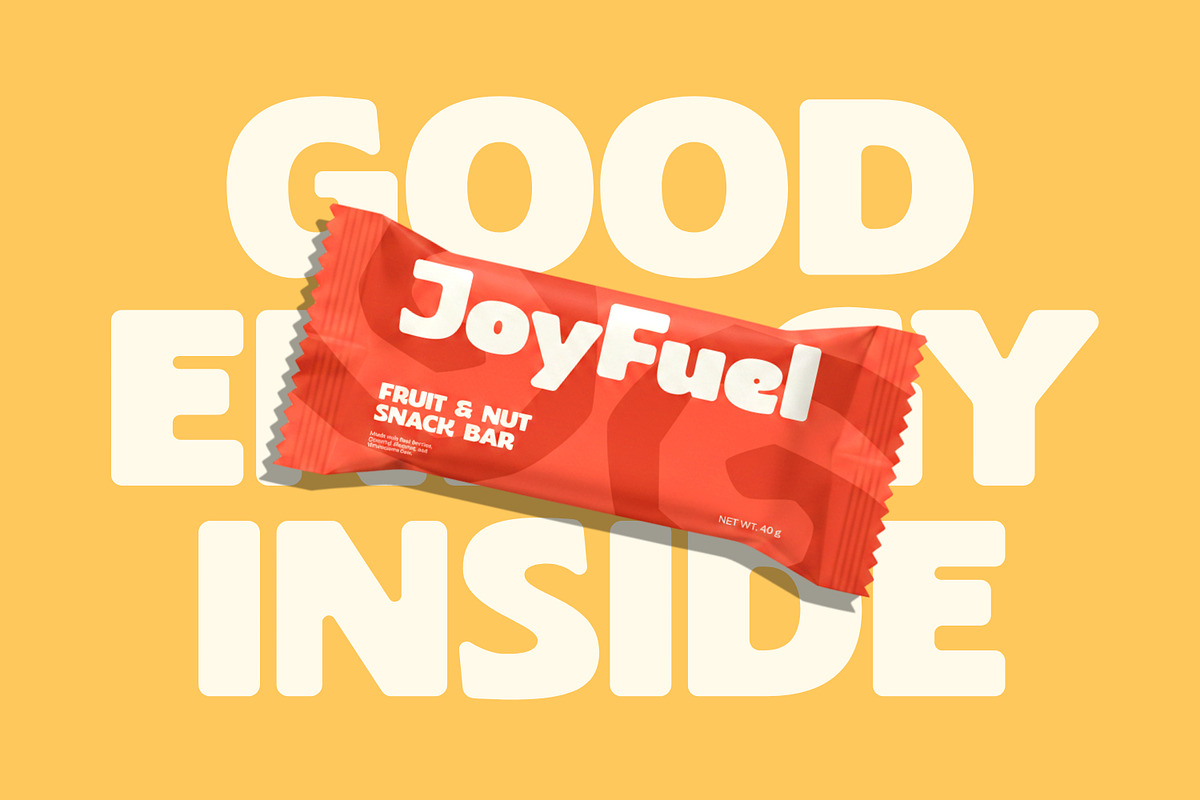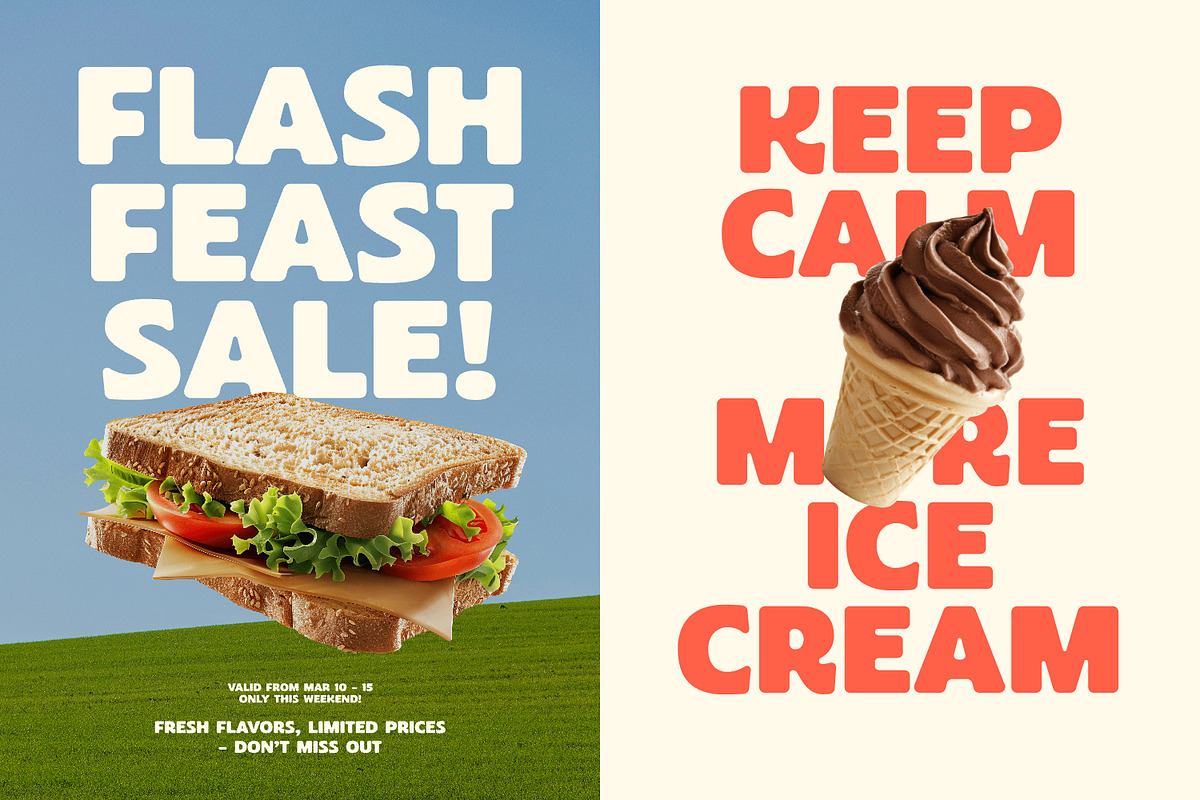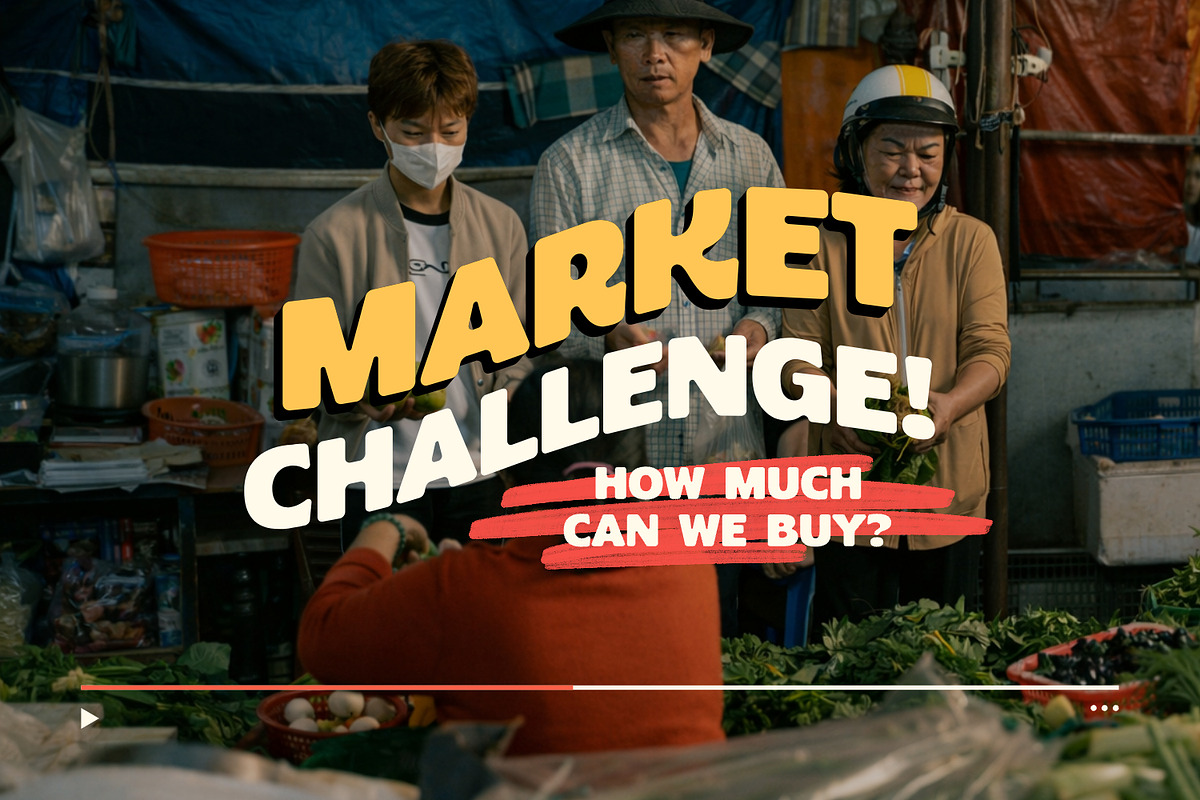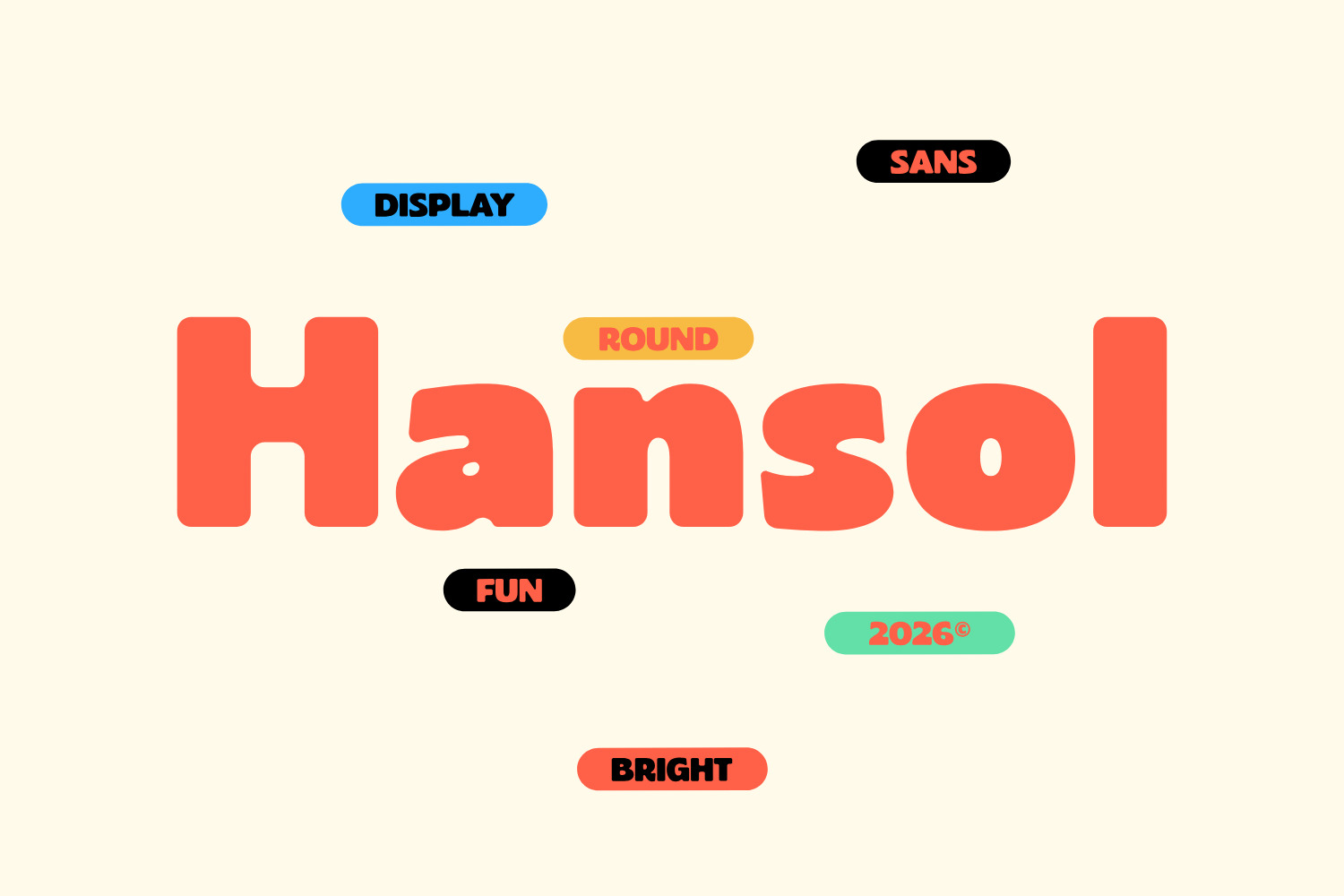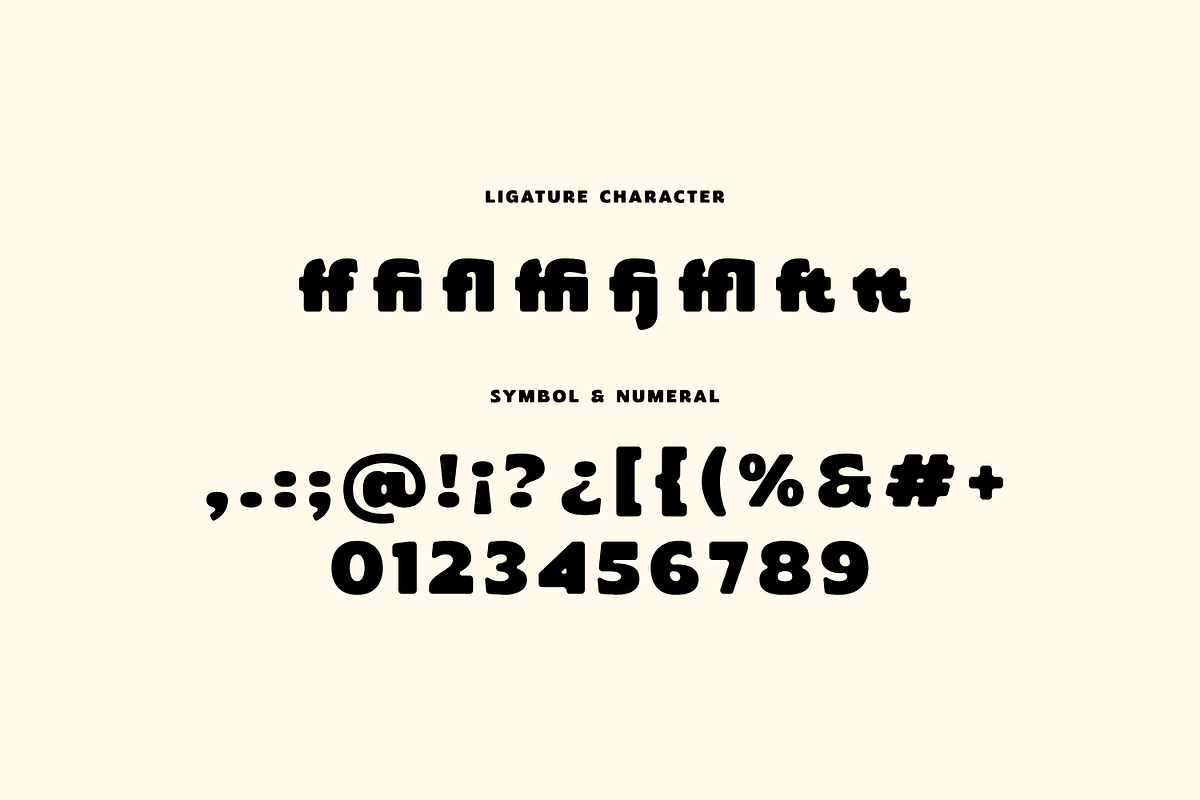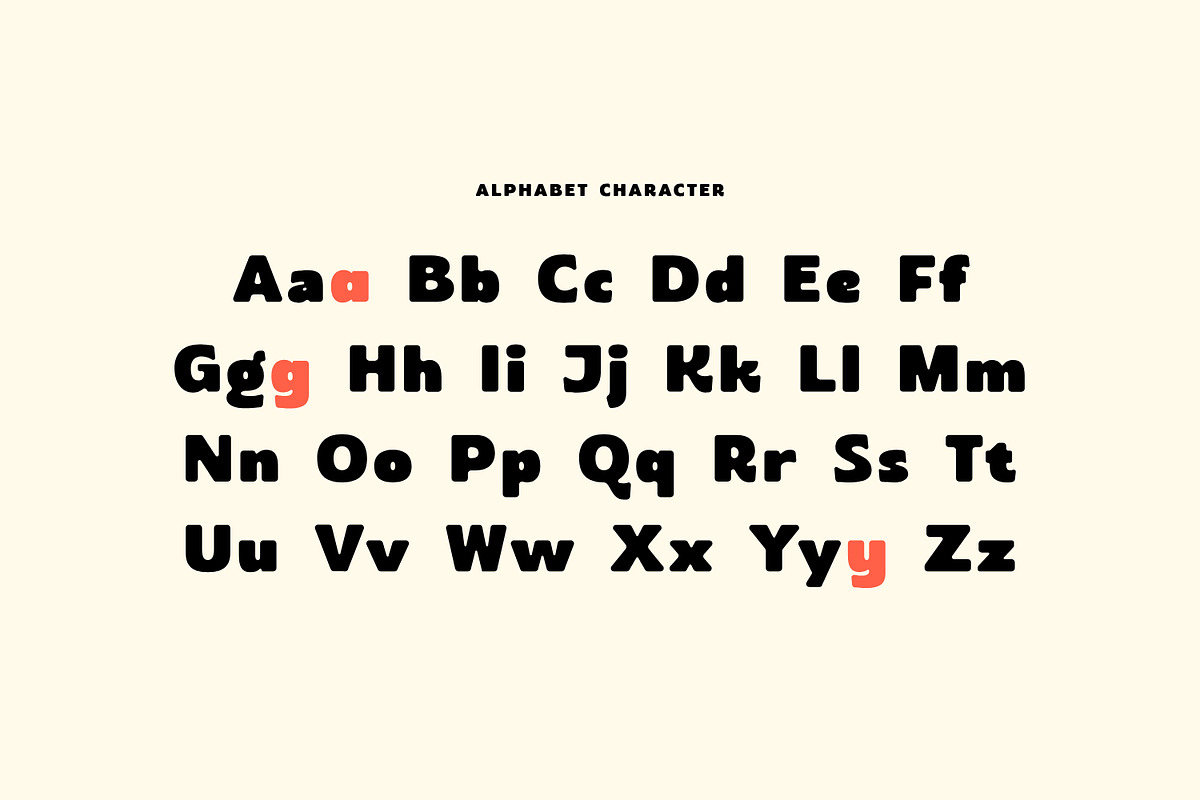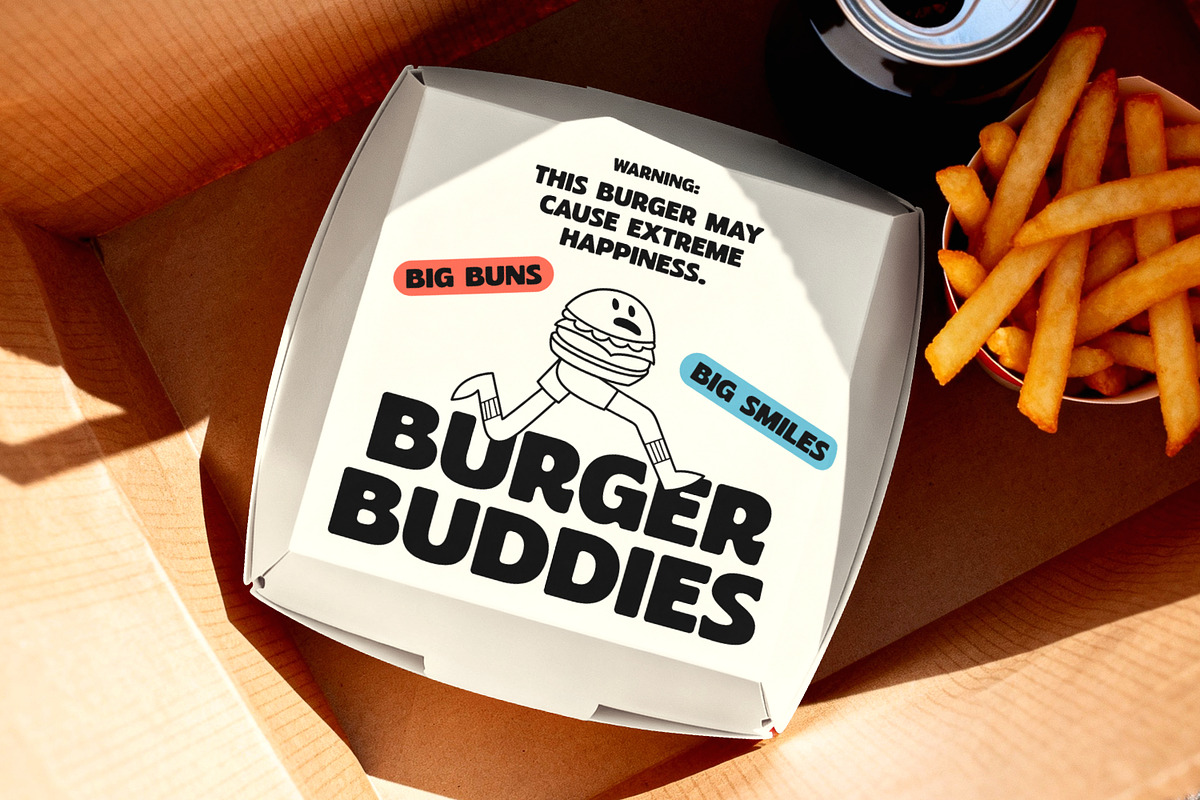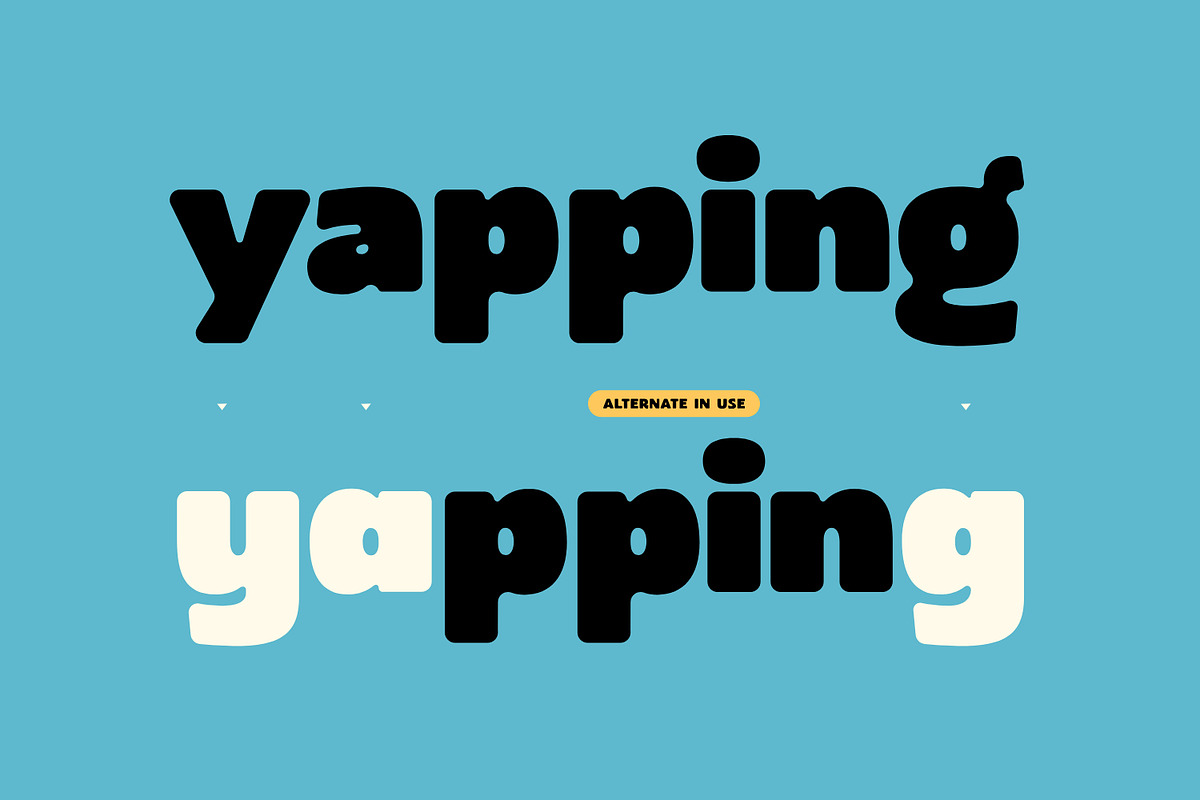
Hansol - Playful Display Sans Font
Hansol is a lively, rounded display sans-serif typeface designed to bring instant energy, warmth, and joy to your visual projects. Featuring extra-chunky letterforms, soft pillowy corners, and bold silhouettes, it embodies a friendly, modern aesthetic that demands attention. Equipped with playful alternate glyphs and custom ligatures, Hansol gives designers the flexibility to create dynamic typography with distinct personality. Whether you are crafting fun packaging for food and snacks, bold YouTube thumbnails, vibrant social media graphics, or playful brand identities, Hansol adds an upbeat, cheerful spark to every composition.
- Fun ligatures and alternate characters
- Numerals, punctuation, symbols